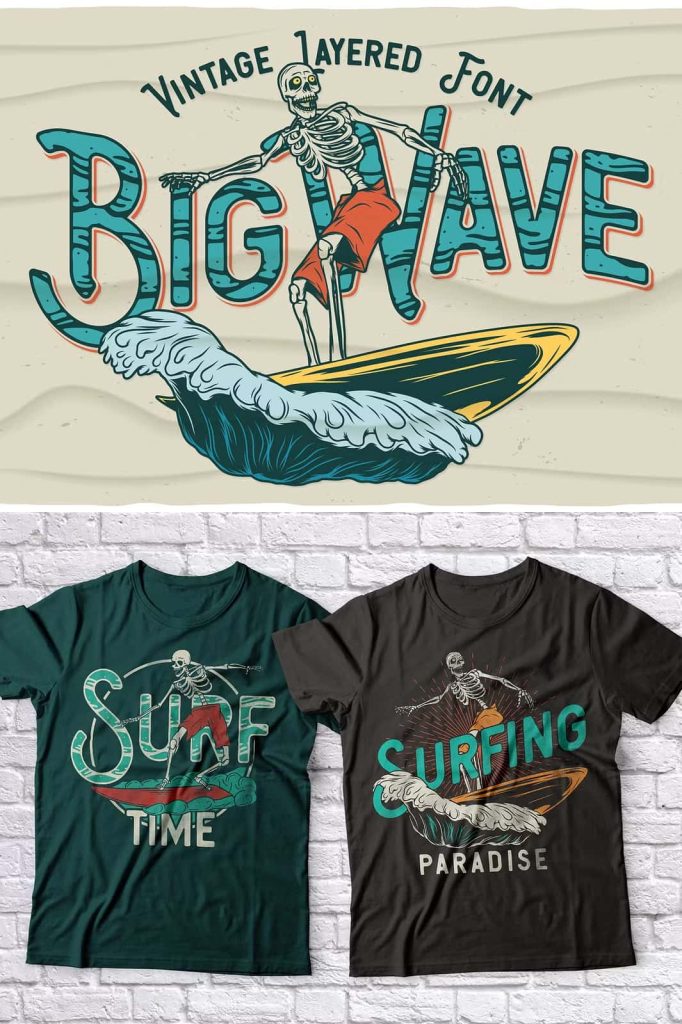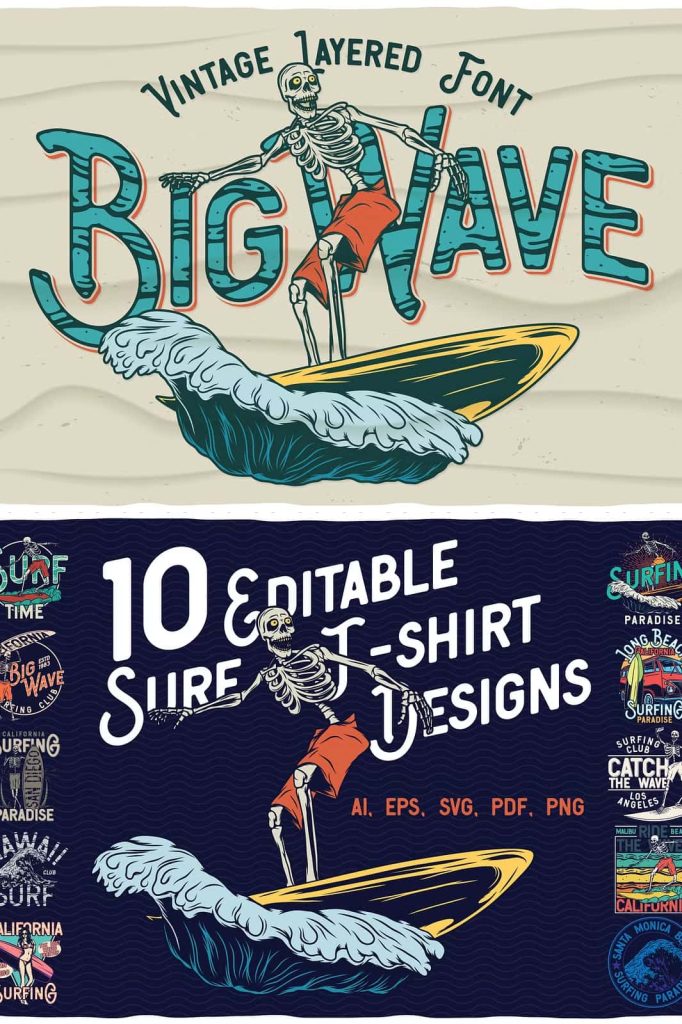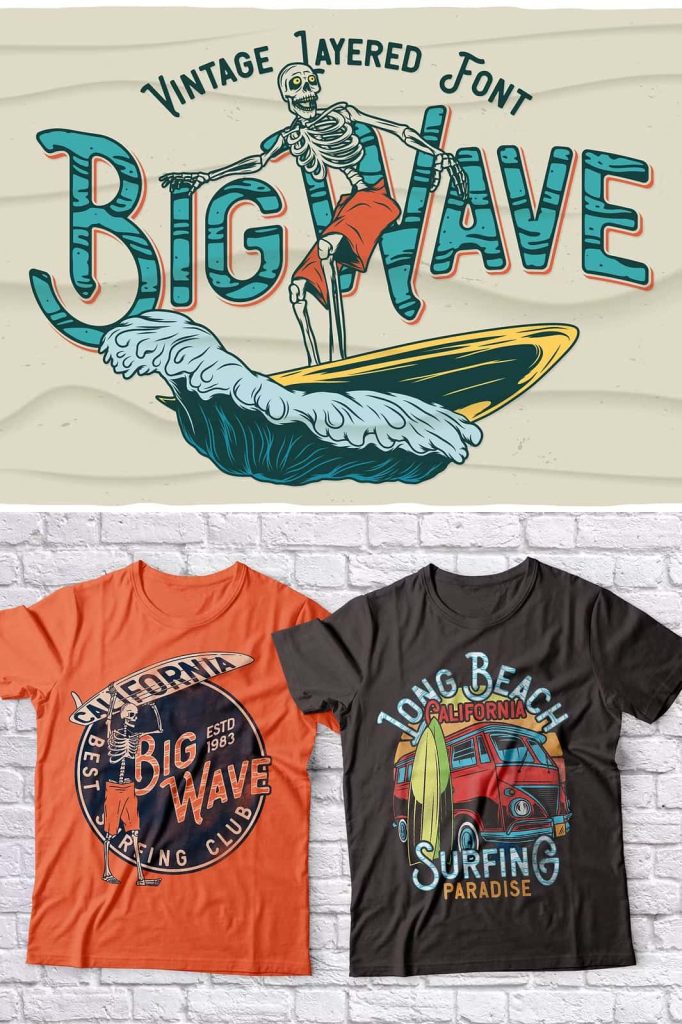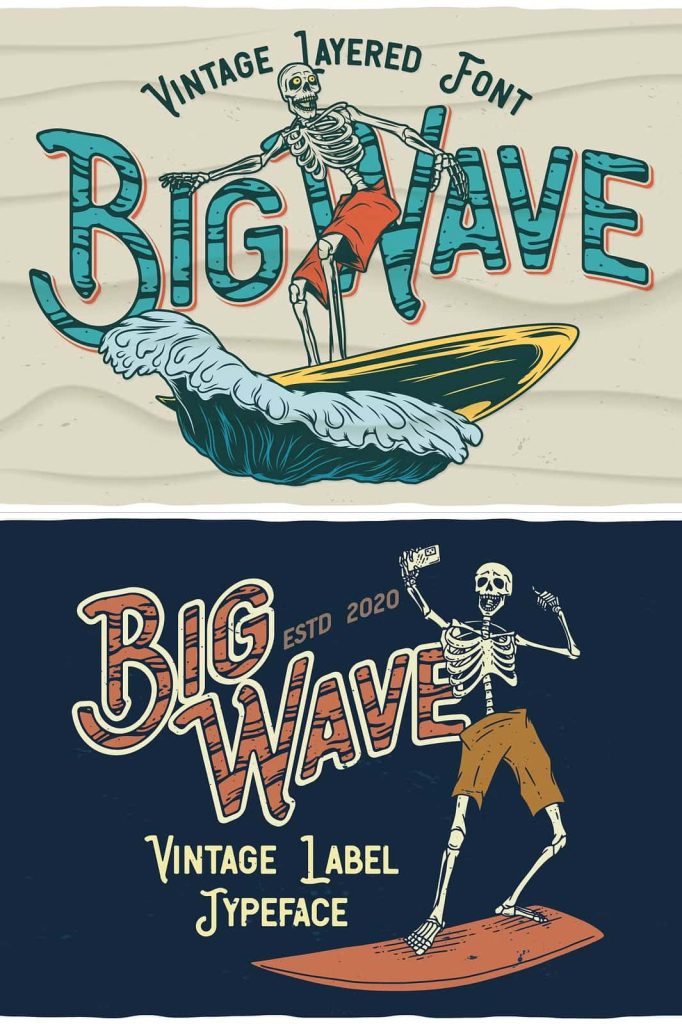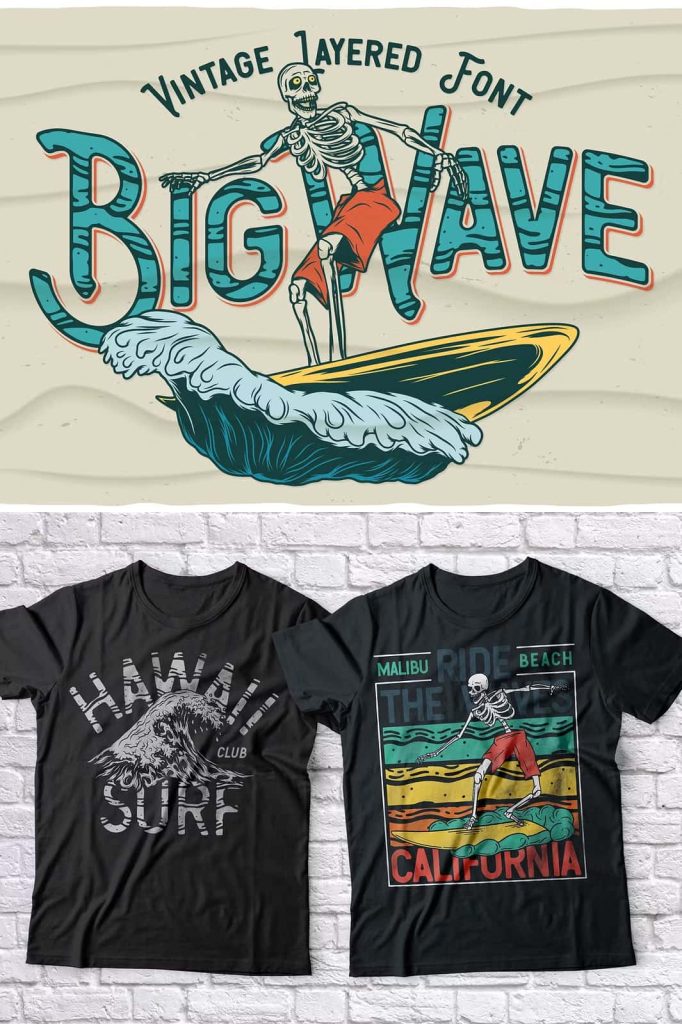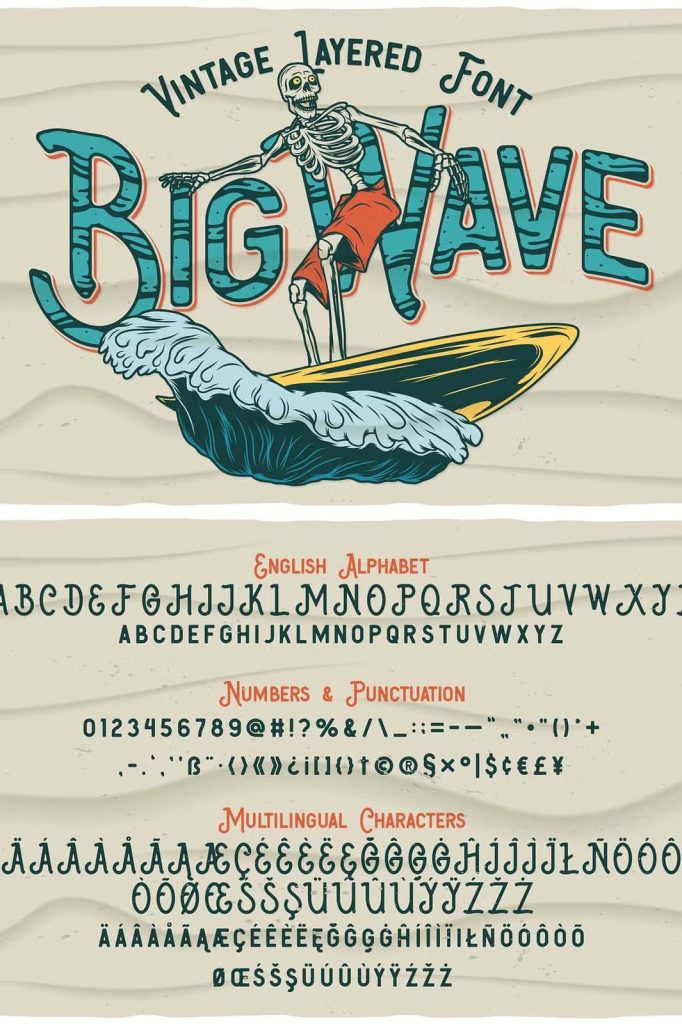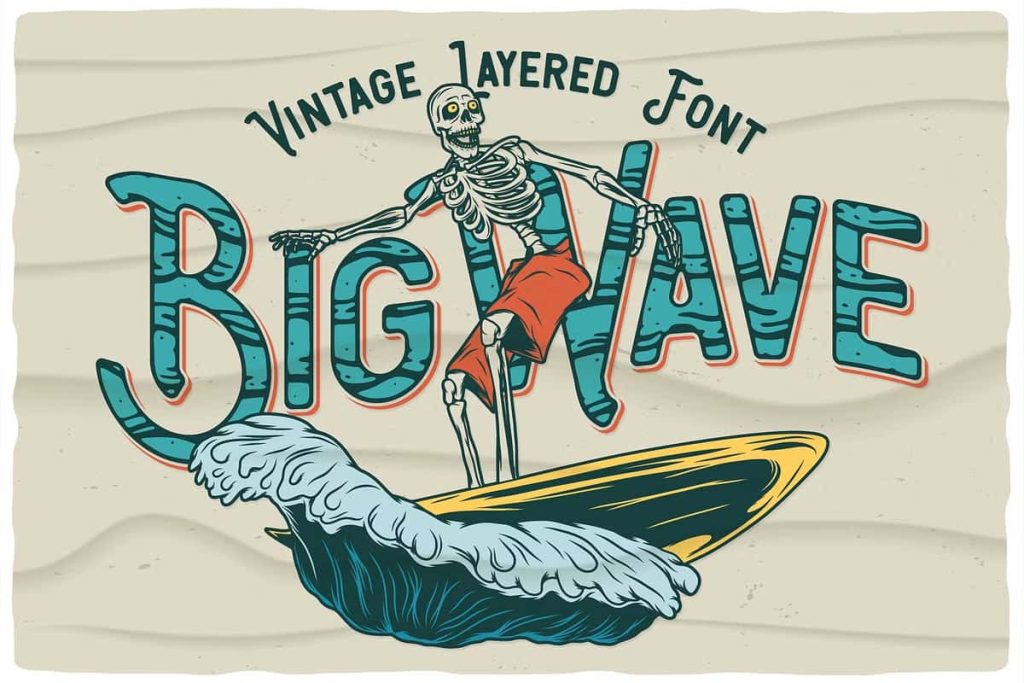
ntroducing a vintage look label font named Big Wave. All available characters you can see at the screenshot. This font have 7 styles – Regular, Full, Shadow, Texture, Shadow FX, Texture FX and Outline. This font will good viewed on any retro design like poster, t-shirt, label, logo etc.